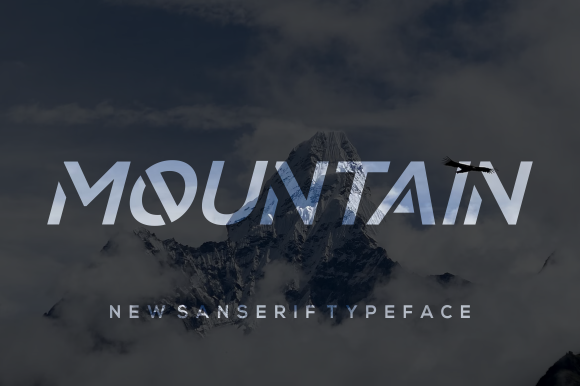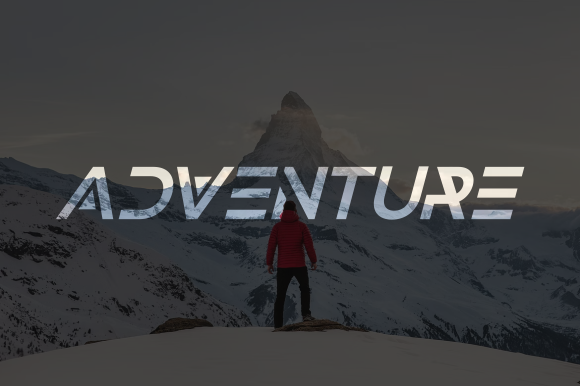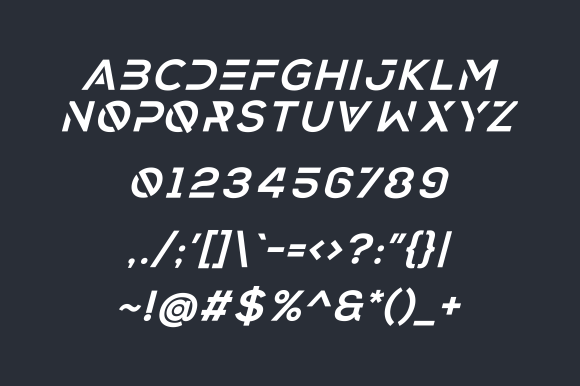
Unlock the Power of Bold Typography with Debfa Font
Have you ever been scrolling through your social media feed and seen a post that stopped you dead in your tracks? Maybe it was the way the words popped against the background, or the way the font seemed to dance across the screen. For designers, moments like these are a reminder that the right typography can make all the difference. And that’s exactly what the Debfa Font is designed to do.
This cool and bold display font is perfect for making a statement, whether you’re designing product packaging, branding a new project, or simply want to add some flair to your social media posts. With its versatility and impact, Debfa Font is a valuable addition to any designer’s toolkit.
- Font Family: Debfa is a sans-serif font family.
- Size: The font family includes a range of weights from Thin (100) to Extra Bold (900).
- Unique Characteristics: Debfa features a unique blend of modern and geometric elements, with a focus on legibility and readability.
- The font has a unique and elegant design, making it perfect for projects that require a touch of sophistication.
- The font is highly legible, even at small sizes, making it a great choice for body text.
- The font family includes a range of weights and styles, giving designers a lot of flexibility when it comes to choosing the perfect fit for their project.
- The font is highly versatile and can be used for a wide range of applications, from corporate branding to digital products.
- The font may not be the best choice for projects that require a lot of bold or condensed text, as it can become difficult to read.
- The font is not optimized for display at extremely small sizes, which can result in pixelation.
- The font family is not as extensive as some other popular font families, which may limit its use in certain projects.
Overall, I’m impressed with the Debfa Font. It’s a solid choice for designers who want a high-quality, versatile font that can add a touch of elegance to their projects. While it may have some limitations, it’s a great addition to any designer’s toolkit.
- Use Debfa Font for headings and titles to create a unique and eye-catching look.
- Pair Debfa Font with other sans-serif fonts for a clean and modern look.
Montserrat is a sans-serif font designed for urban environments. It’s a great choice for designers who want a clean and modern look. Montserrat is more versatile than Debfa Font and can be used in a wide range of applications, from logos to body text.
Comparison: Montserrat Font has a more geometric and modern feel compared to Debfa Font, which has a more classic and elegant look. Montserrat Font is also more suitable for digital use, while Debfa Font is better suited for print materials.
Open Sans is a popular sans-serif font that is highly legible and versatile. It’s a great choice for designers who want a font that can be used in a variety of contexts. Open Sans is more readable than Debfa Font, especially at smaller font sizes.
Comparison: Open Sans Font has a more neutral and clean look compared to Debfa Font, which has a more distinctive and elegant feel. Open Sans Font is also more widely available and supported than Debfa Font.
Lato is a sans-serif font that is highly legible and elegant. It’s a great choice for designers who want a font that can be used in a variety of contexts, from logos to body text. Lato is more modern and sleek compared to Debfa Font, which has a more classic and timeless look.
Comparison: Lato Font has a more modern and minimalist feel compared to Debfa Font, which has a more ornate and elegant look. Lato Font is also more suitable for digital use, while Debfa Font is better suited for print materials.
Inter is a sans